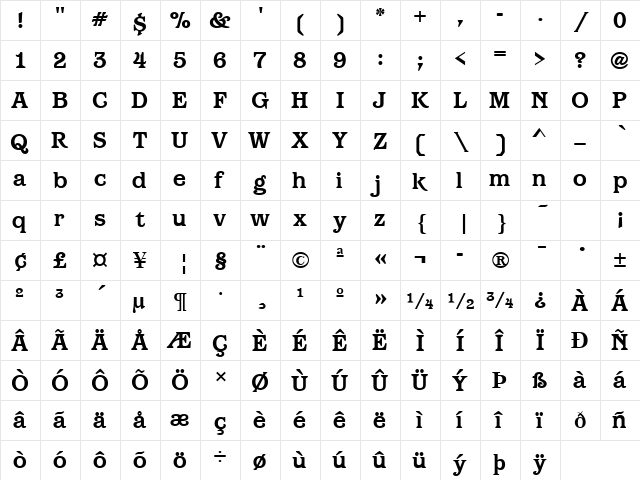
Barcelos Bold
Design Context for Barcelos Typeface
Barcelos offers clean, dependable letterforms without strong stylistic allegiance, making it a practical choice for designers who need flexibility. Its bold stroke weight gives it real presence on the page.